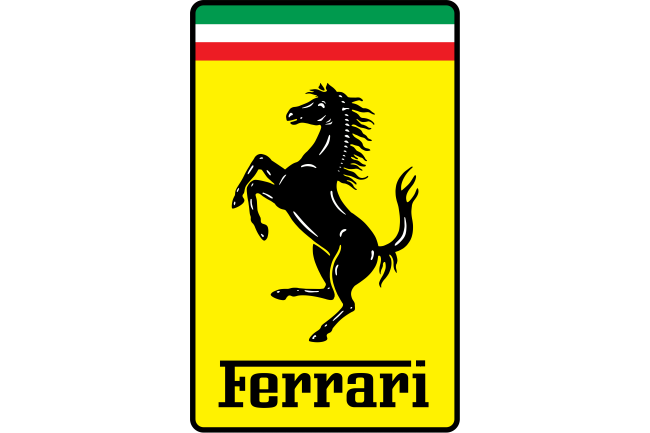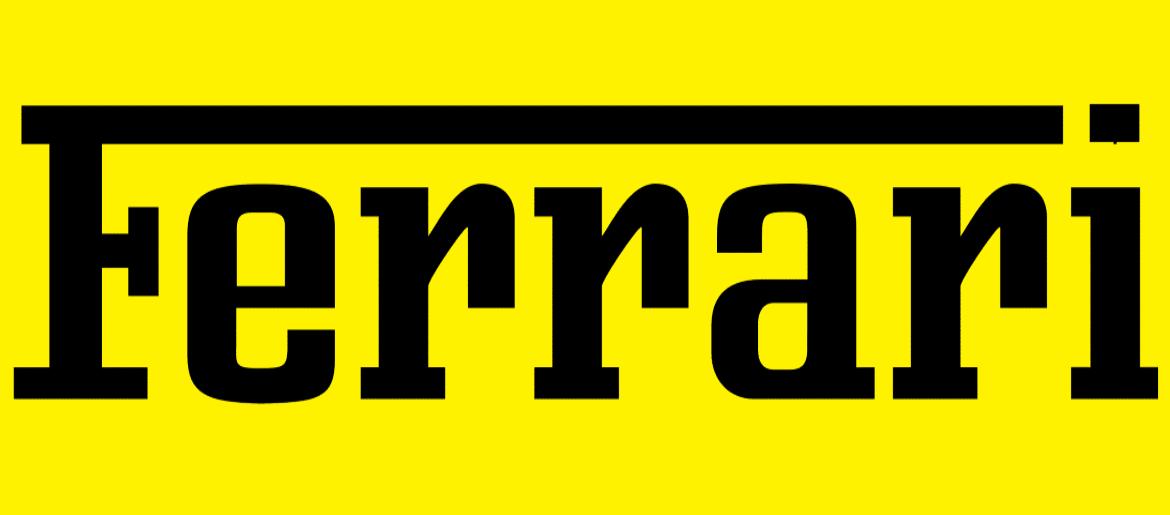
Ferrari Font
What Font is Used in the Ferrari Logo?
Ferrari Font is Ferro Rosso, a typeface designed by Michael Hagemann. This bold and elegant font captures the speed, luxury, and passion that define Ferrari’s world-famous identity. With its clean lines, aerodynamic letterforms, and slightly condensed proportions, Ferro Rosso reflects both the power of high-performance engineering and the sophistication of Italian design.
I think the Ferrari Font works beautifully because it perfectly embodies the brand’s racing heritage and prestige. The sharp edges and refined curves suggest motion and precision, while the bold structure commands attention—just like a Ferrari on the road. It’s a typeface that doesn’t just represent the brand name; it channels the spirit of speed, craftsmanship, and excellence behind it.
About Ferrari
Ferrari S.p.A. is an Italian luxury sports car manufacturer founded by Enzo Ferrari in 1939. Based in Maranello, Italy, Ferrari is renowned for its world-class racing legacy, innovative design, and iconic red supercars that symbolize performance and exclusivity.